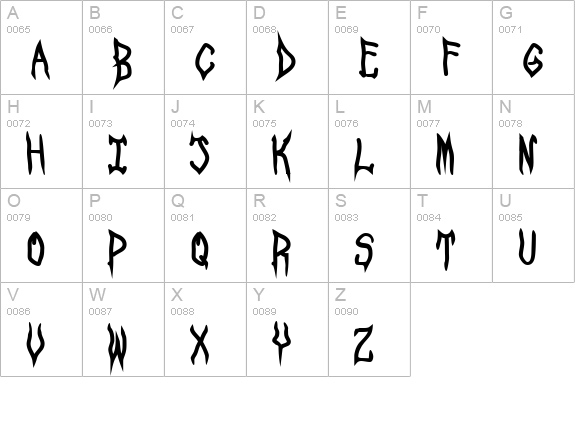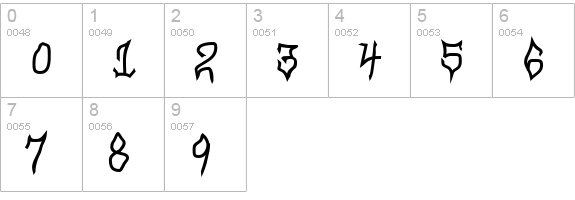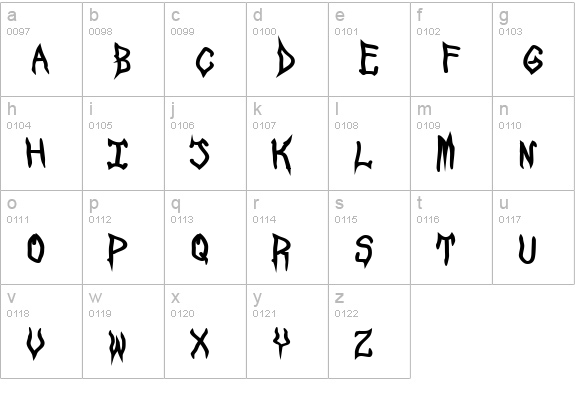
SpookShow Undead Font Details
Introducing SpookShow Undead, a chillingly captivating font that will send shivers down your spine. This hauntingly beautiful typeface is perfect for all your Halloween-inspired designs, horror movie posters, gothic invitations, and everything else that needs a touch of darkness. SpookShow Undead is not just any ordinary font, it is a free font that will leave a lasting impression on your audience. With its intricate and eerie design, this font is bound to make heads turn and hearts race. Its sharp, jagged edges and ghostly presence make it the ideal choice for any project that requires a touch of the macabre. But what makes SpookShow Undead truly special is the fact that it is freely available to download at FontsMarket.com. Yes, you read that right - you can get your hands on this spine-chilling font without spending a dime. FontsMarket.com, the go-to destination for high-quality and unique fonts, offers SpookShow Undead as a gift to all the creative souls out there who dare to embrace the darkness. So go ahead and download SpookShow Undead today. Let your imagination run wild as you bring your designs to life with this free font that is sure to give them an undead edge. Whether you're designing a haunted house flyer, creating a spooky Halloween party invitation, or simply want to add a touch of the supernatural to your artwork, SpookShow Undead will be your trusted companion. Get ready to unleash the darkness and captivate your audience with the bone-chilling beauty of SpookShow Undead. Download it for free at FontsMarket.com and let your creativity soar to new, haunting heights.